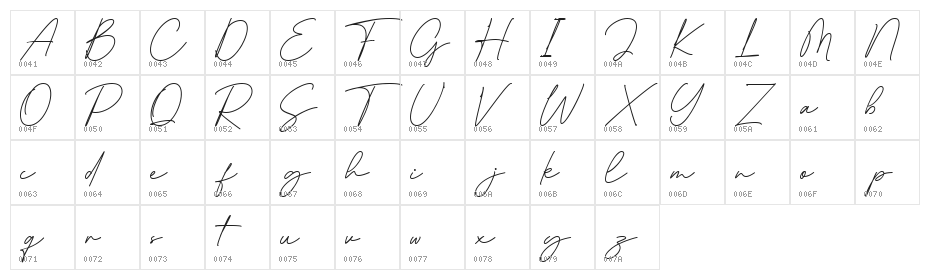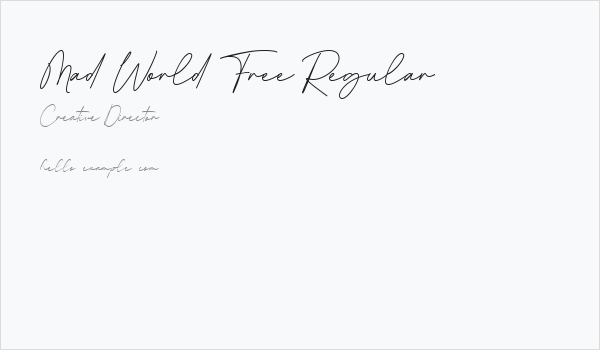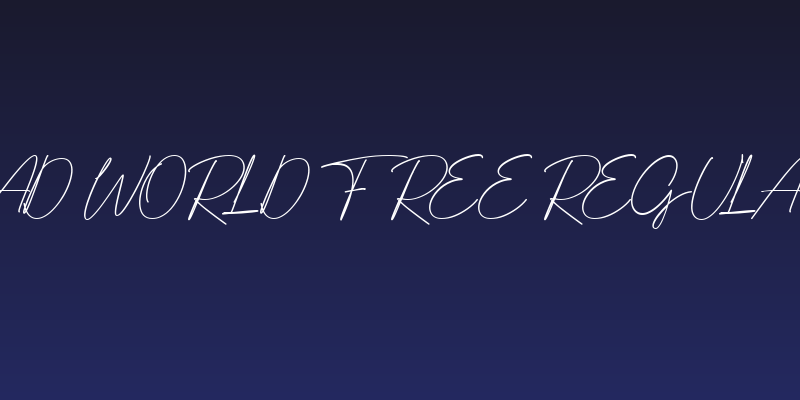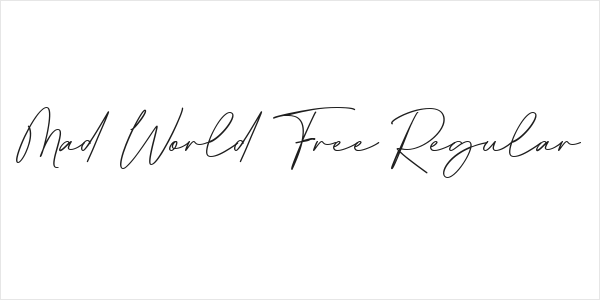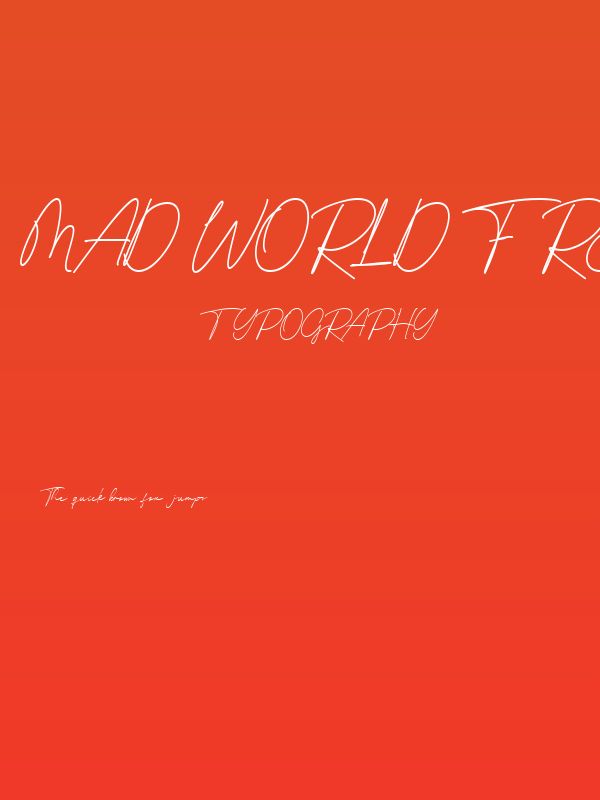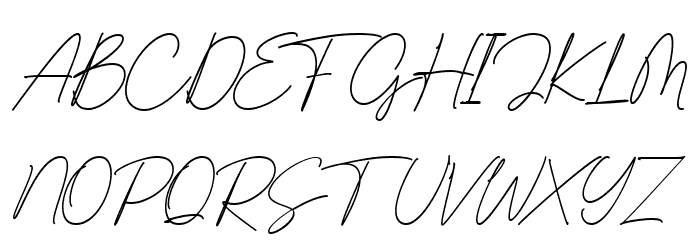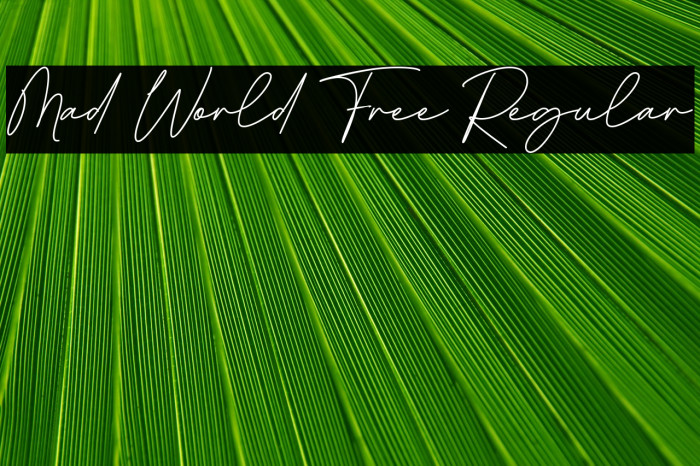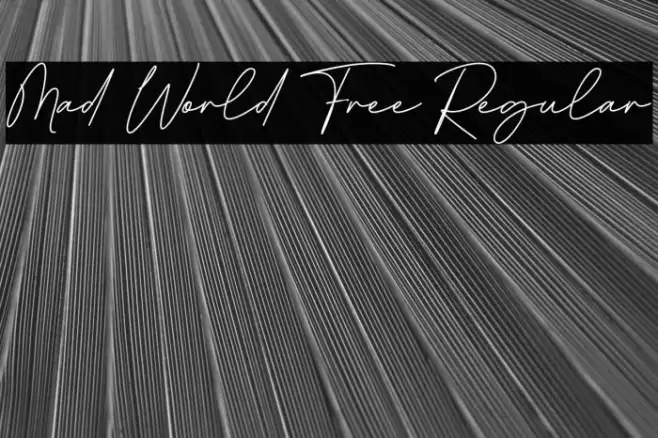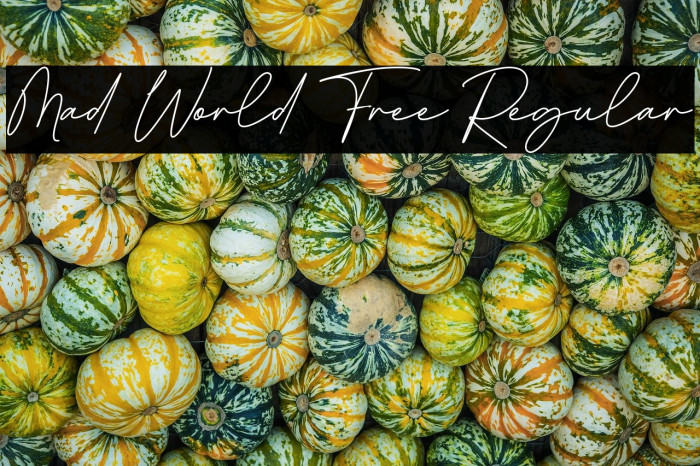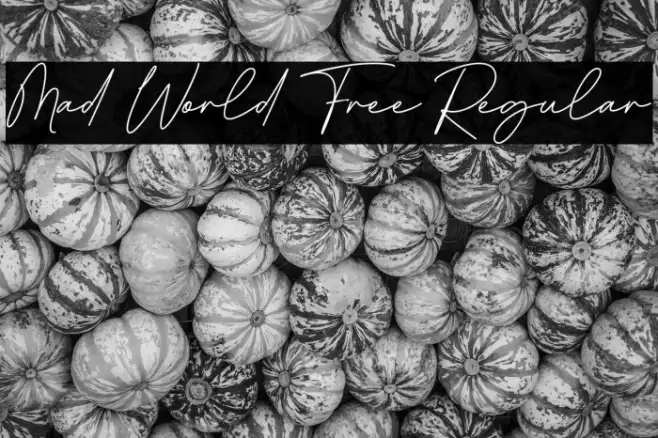
Mad World Free Regular Font
This font exudes a lively and expressive handwritten style, characterized by its fluid and dynamic strokes. The uppercase letters are tall and slender, with a slight slant that adds a sense of movement and energy. The lowercase letters maintain a consistent flow, with some characters featuring loops and flourishes that enhance its artistic appeal. The overall design is elegant yet casual, making it versatile for various creative applications. The font's thin lines and delicate curves give it a sophisticated look, while the handwritten nature adds a personal touch. It is well-suited for projects that require a humanistic and approachable feel.